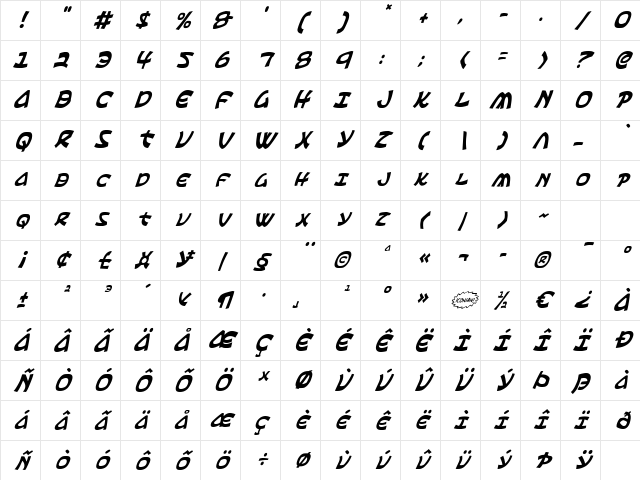
Ephesian is a composed and adaptable typeface that performs quietly and consistently across a wide range of design contexts. The slanted form adds forward momentum and visual energy. Its narrow stance lets it pack a punch even in space-constrained designs.
Pro Tip: Use Ephesian for emphasis, pull quotes, and subheadings where its slanted energy can add rhythm to the layout.